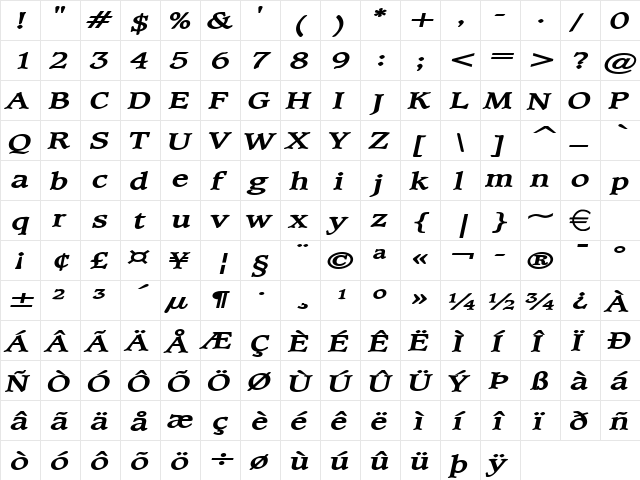
ClaytonExtended BoldItalic Font Preview
Design Context for ClaytonExtended Typeface
ClaytonExtended takes a measured approach to typography — its balanced proportions and neutral character make it a reliable workhorse for both digital and print work. Its italic angle brings a sense of urgency and motion to the letterforms. Its bold stroke weight gives it real presence on the page.
Pro Tip: Try ClaytonExtended for annotation and caption copy alongside an upright companion — the contrast in angle creates a dynamic but ordered typographic system.